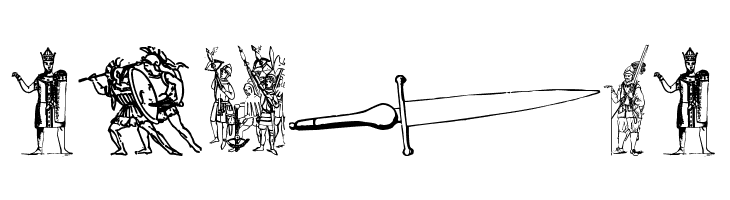
A lively, flowing script font with a warm, handwritten style.
Bold, brush-style script with a warm, handwritten look.
A bold, wide font with a contour effect and leftward slant, offering a dynamic and modern look.
A bold, edgy font with sharp angles and a dynamic, rugged appearance.
A bold, slanted font with horizontal lines, evoking speed and motion.
A bold, handwritten-style font with dynamic and playful characteristics.
A bold, italic font with a dynamic, handwritten style.
A bold, handwritten font with dynamic strokes and a playful style.
An ornate serif font with decorative flourishes and a distressed texture.
A bold, geometric font with a strong, blocky appearance.
An elegant, calligraphic script inspired by fantasy languages.
A playful, rounded font with a casual and approachable style.
A collection of illustrative characters with a historical theme.